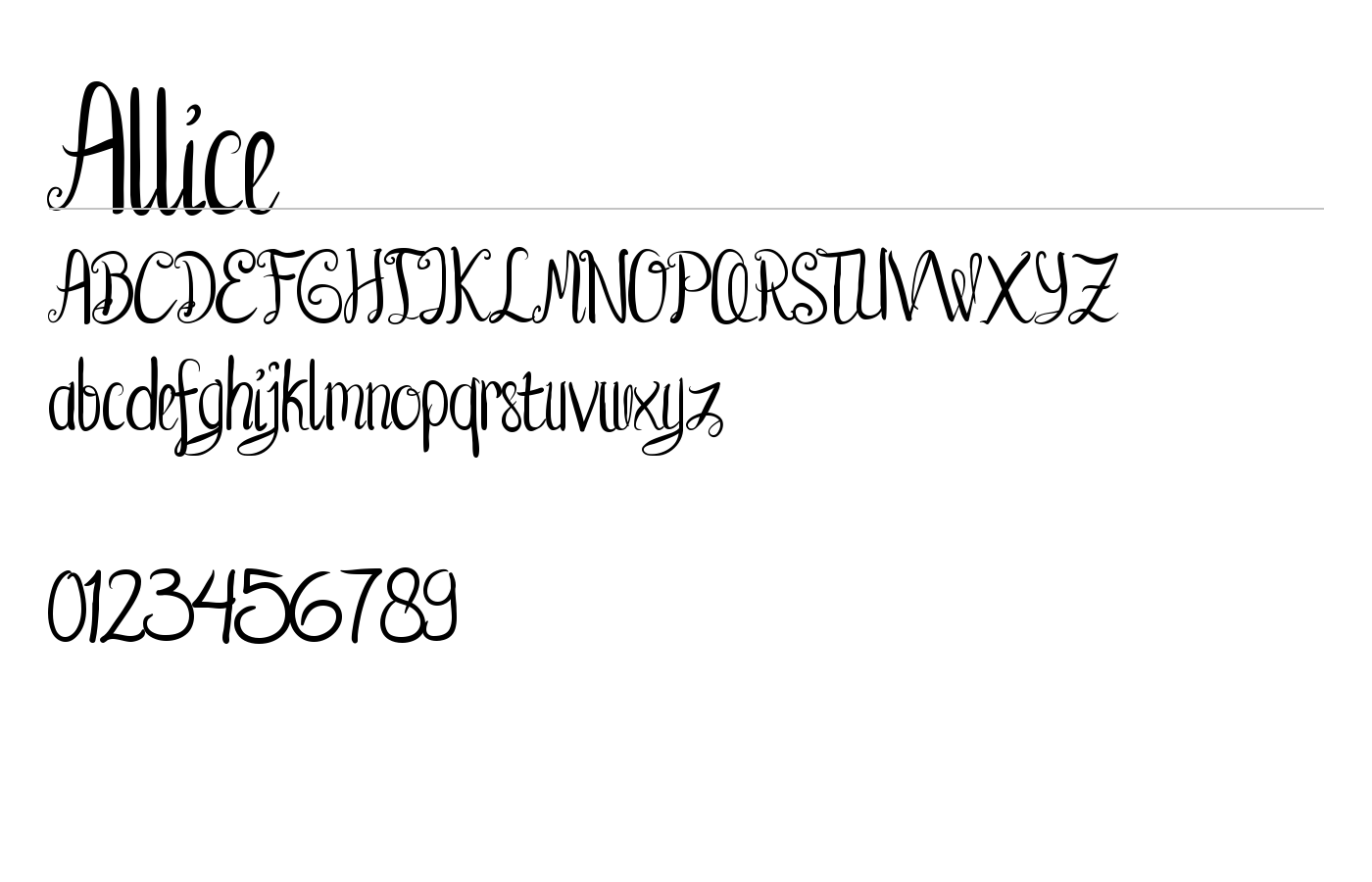
Allice is a decorative script font with a whimsical and elegant style, featuring tall, slender letterforms adorned with playful curls and flourishes. Its light weight and narrow width give it a delicate, airy feel, making it perfect for projects that aim to convey a sense of creativity and charm, such as invitations, greeting cards, and stylish branding. The unique, hand-drawn character of Allice adds a personalized touch that works beautifully in decorative headlines and artistic designs.
Allice Font